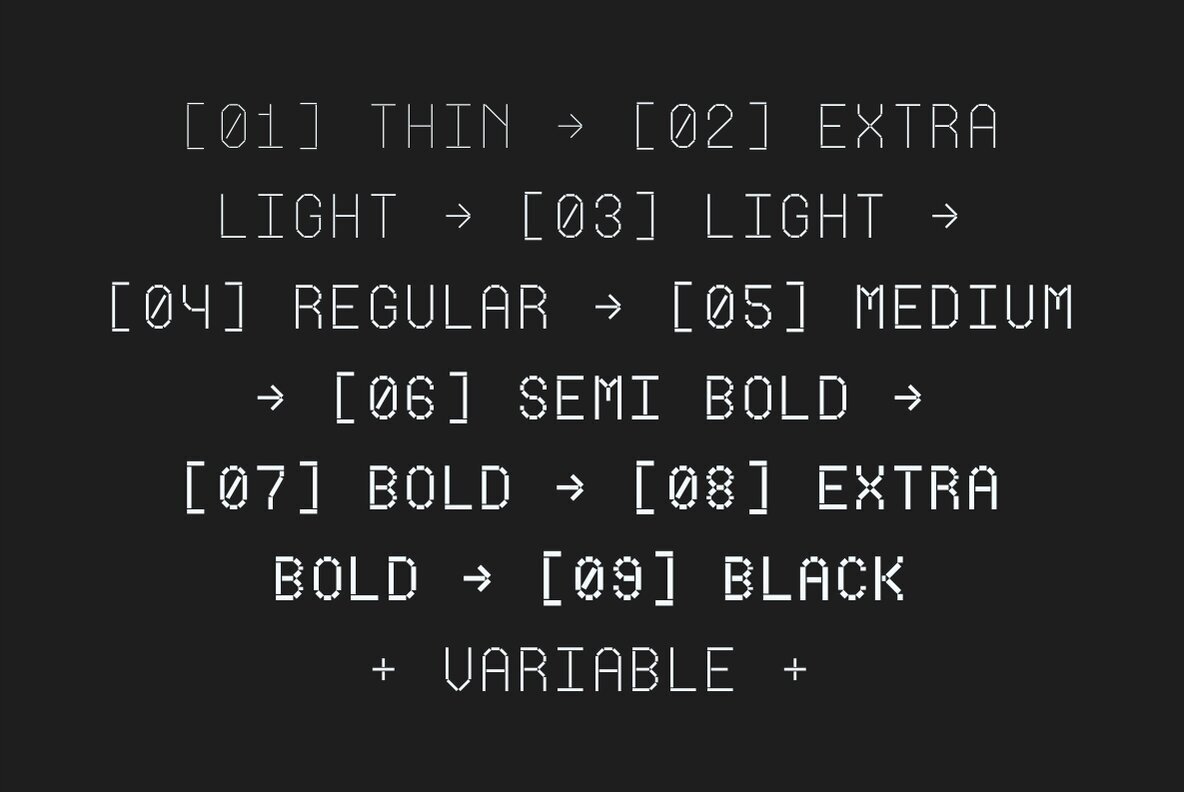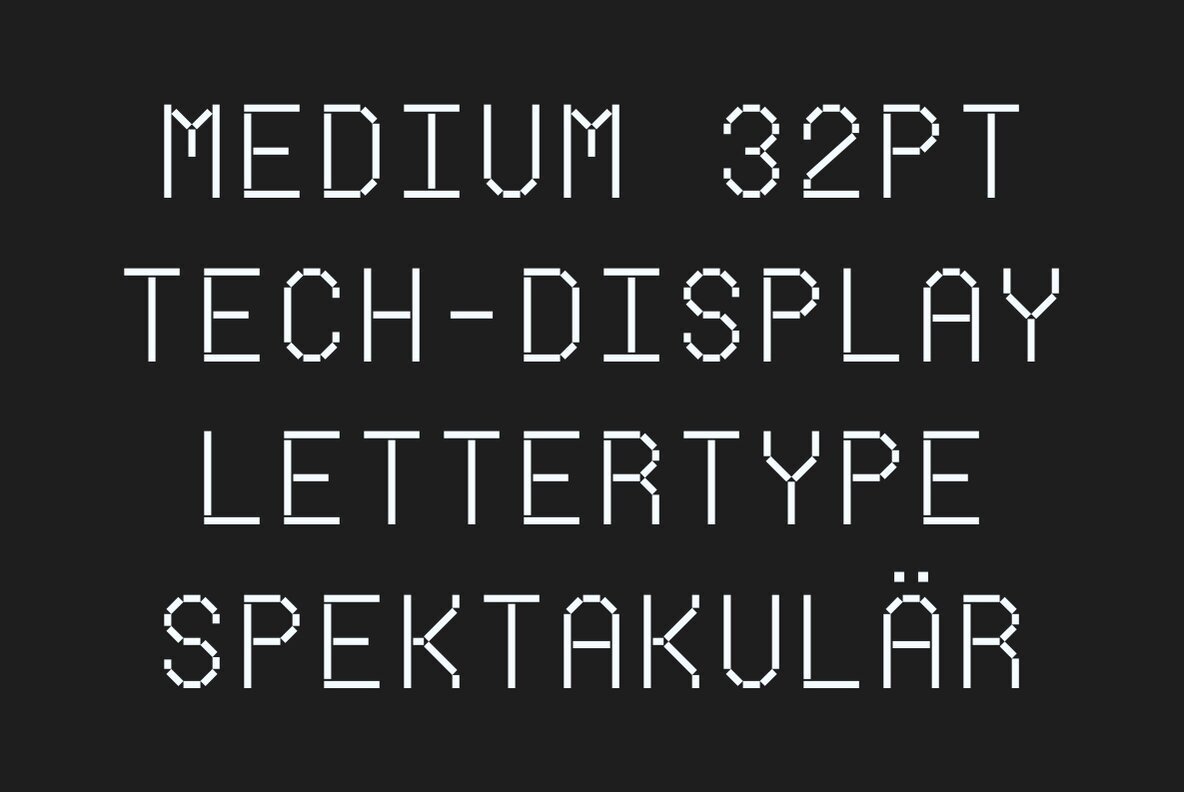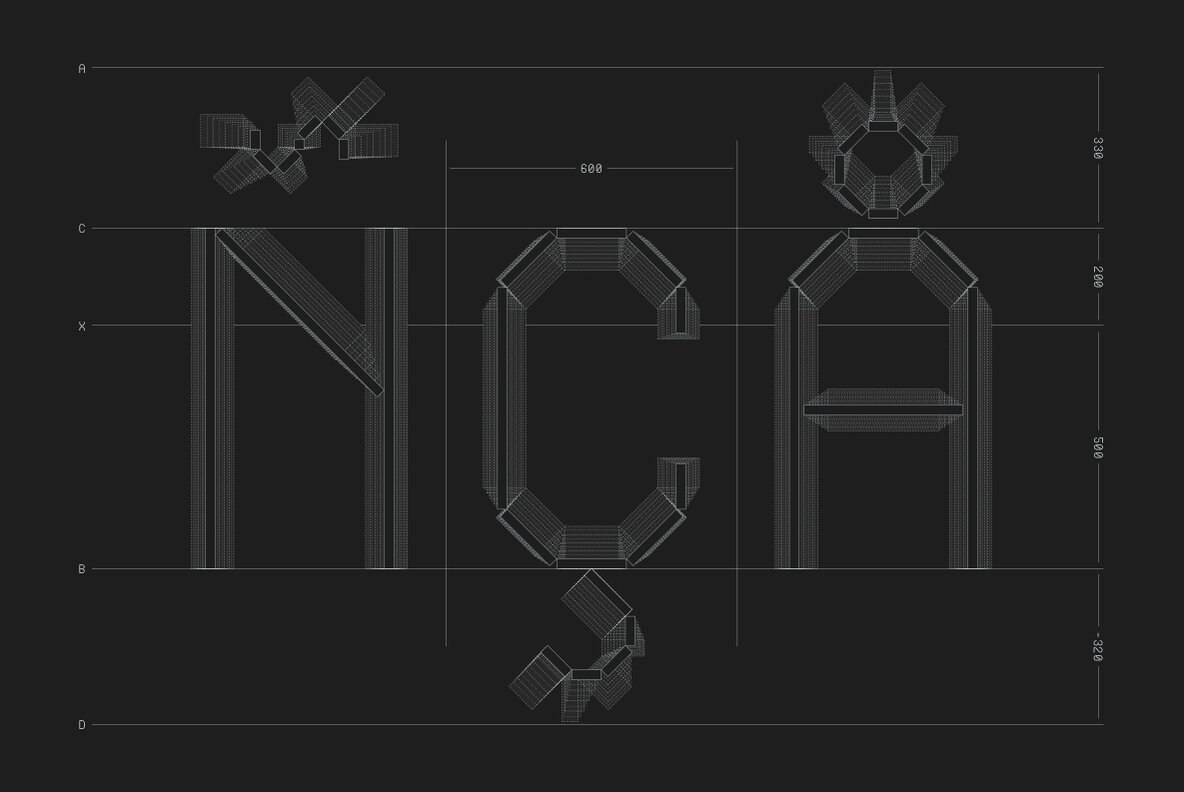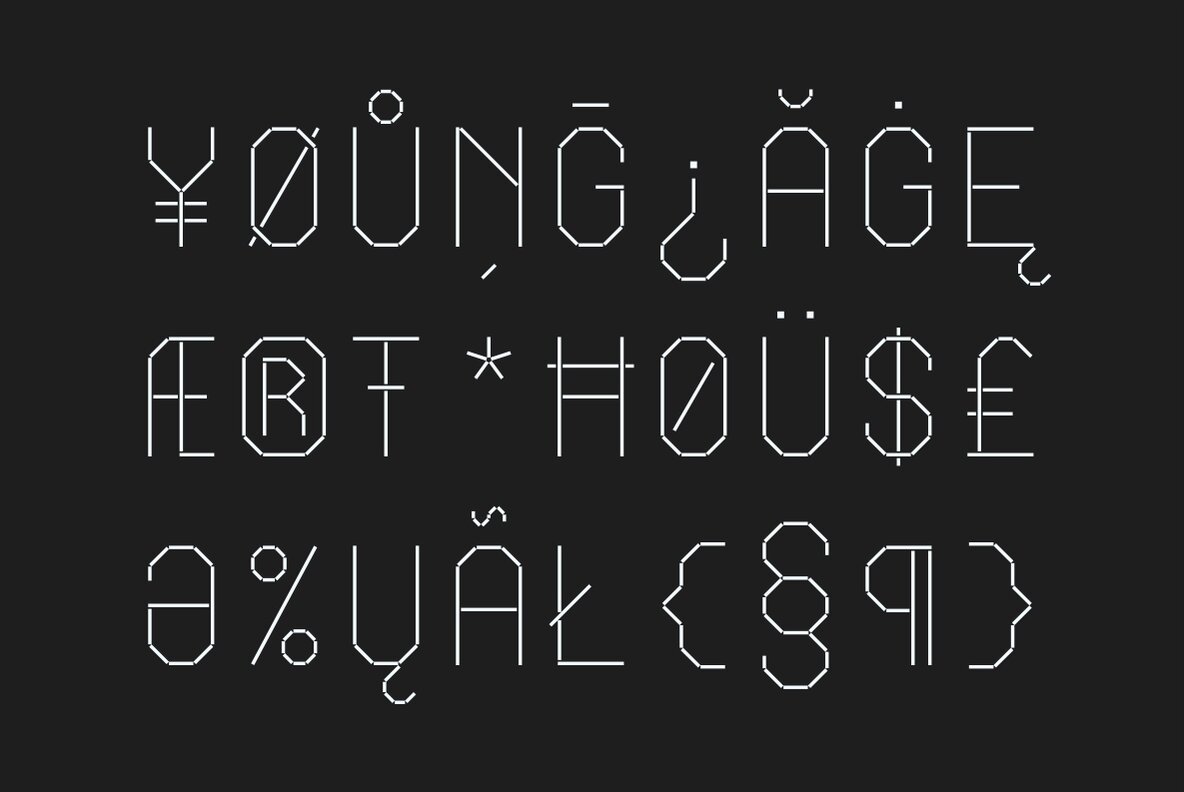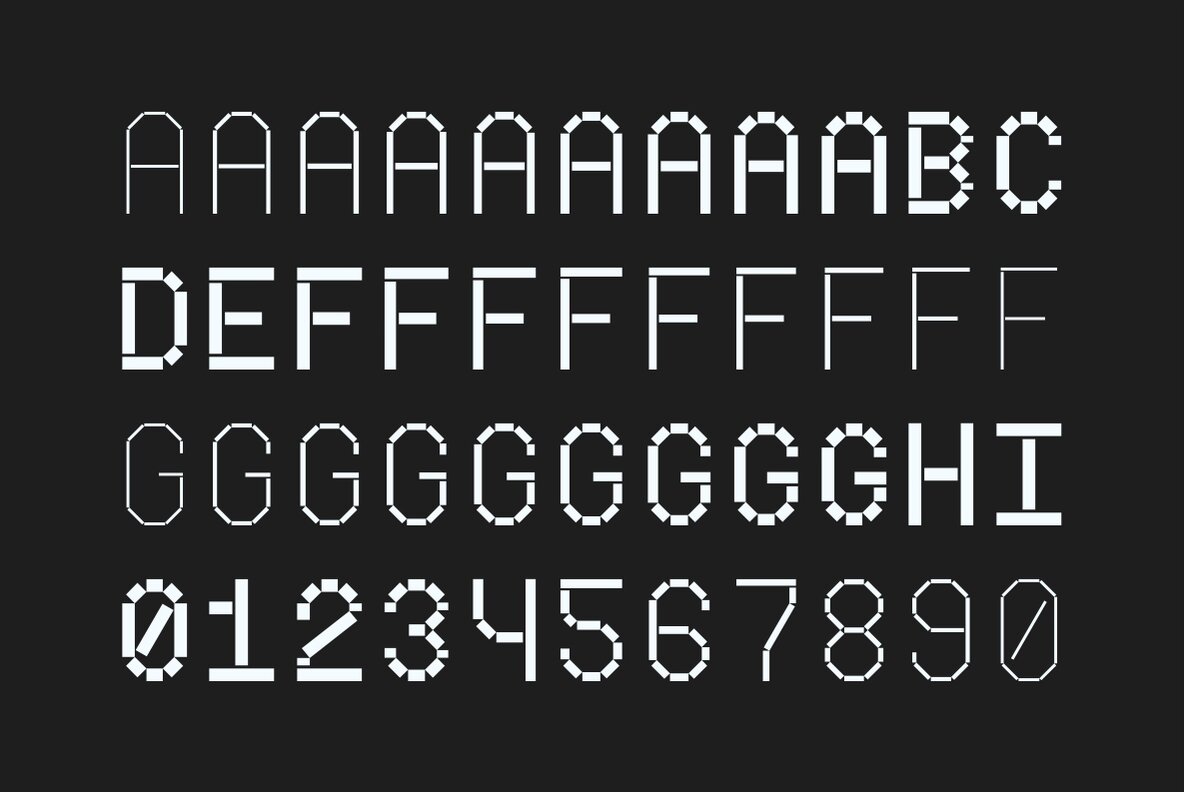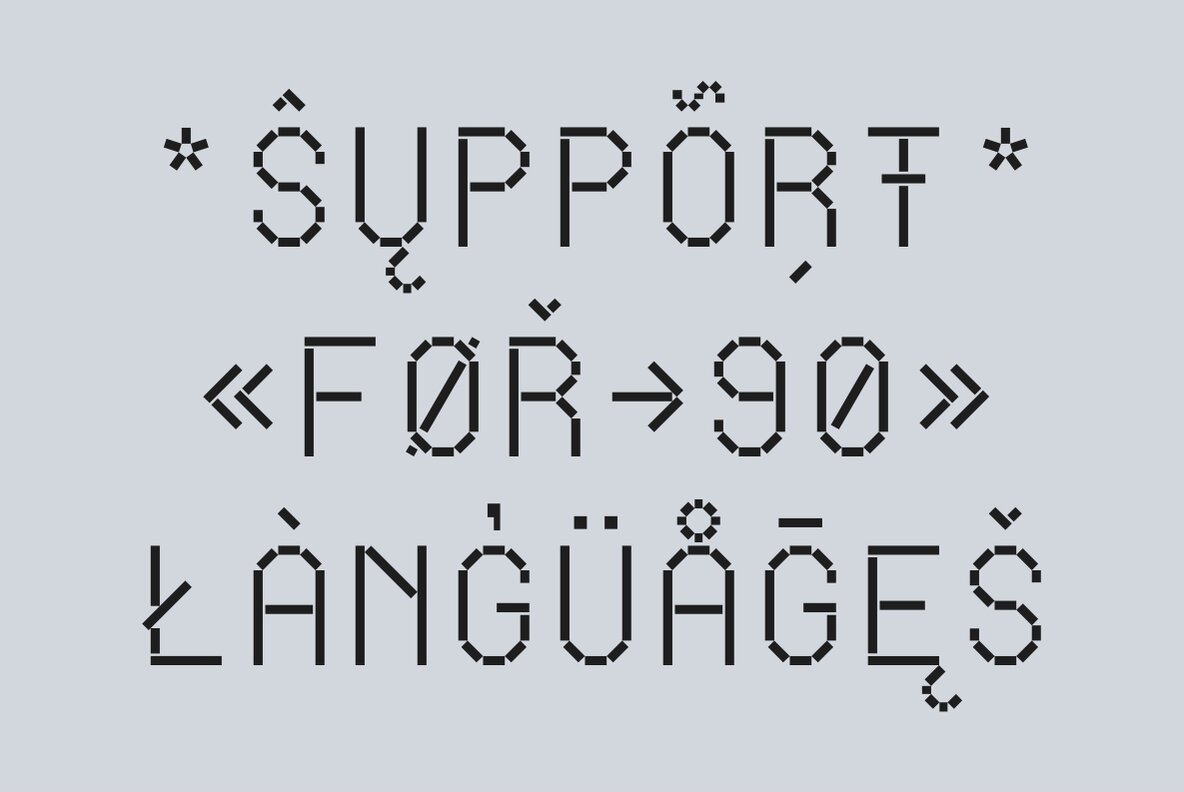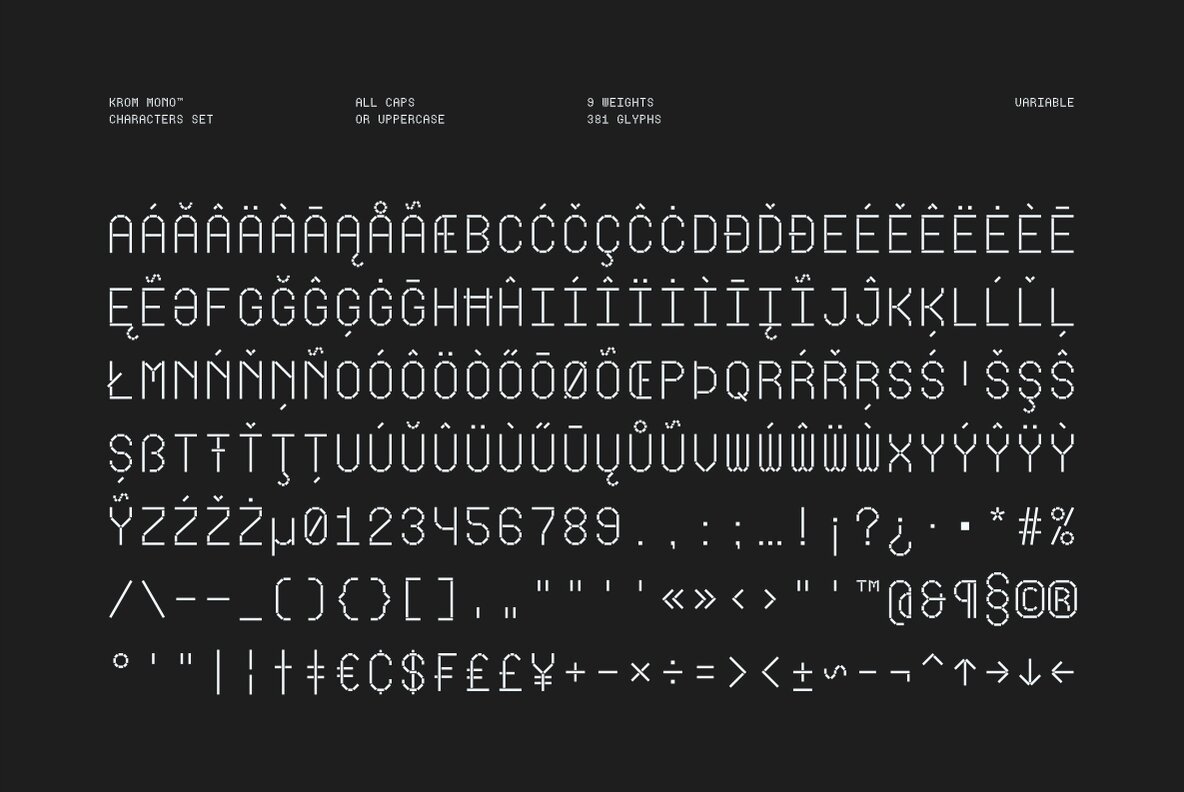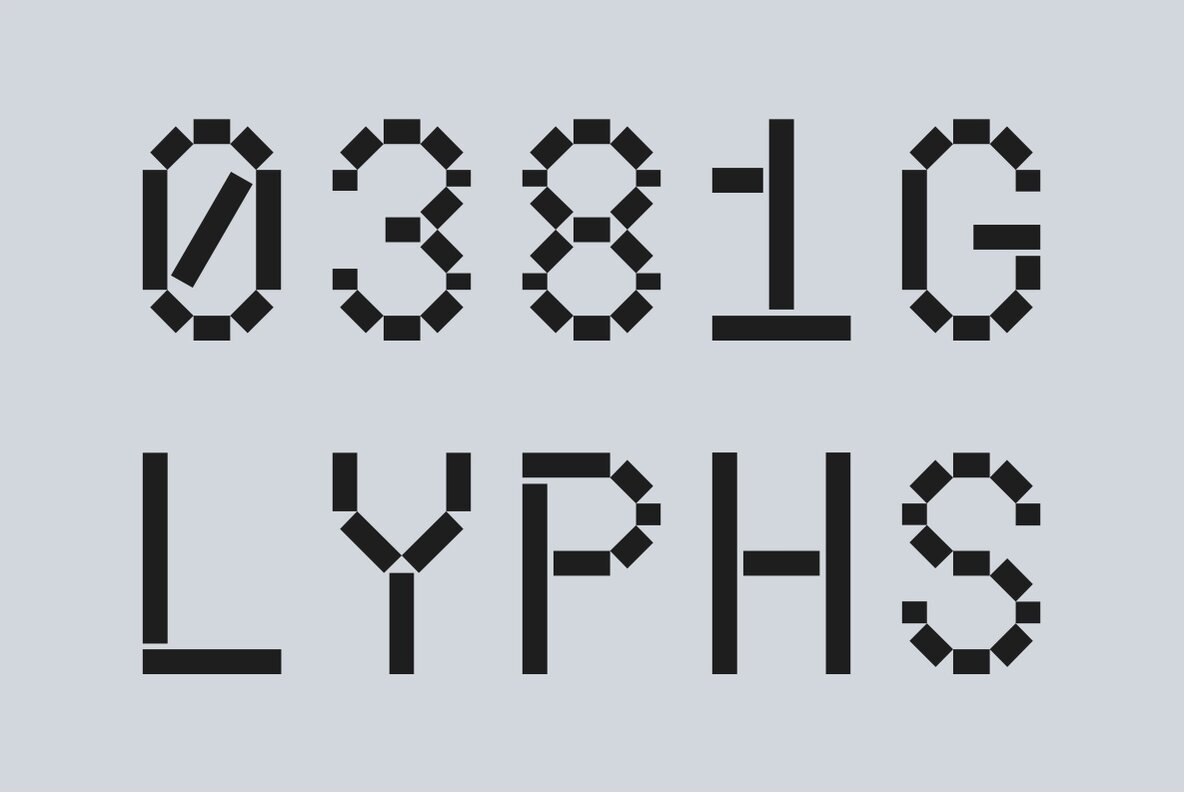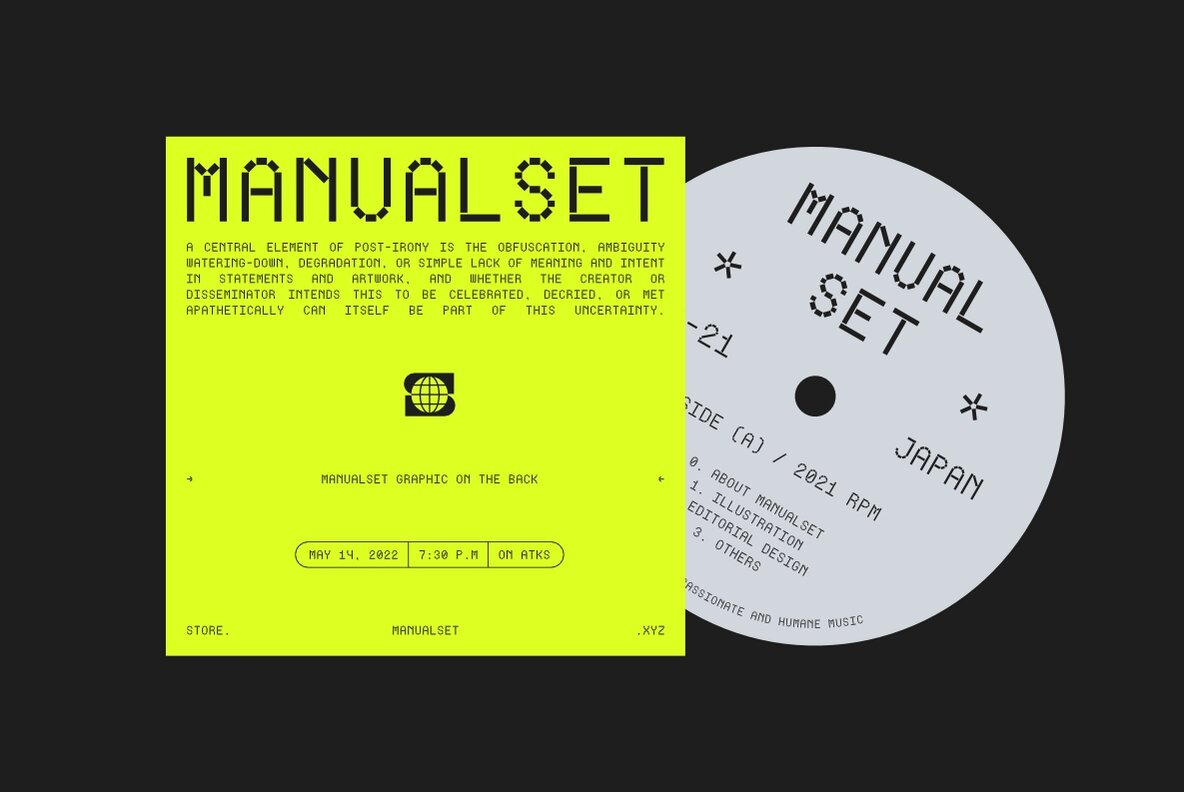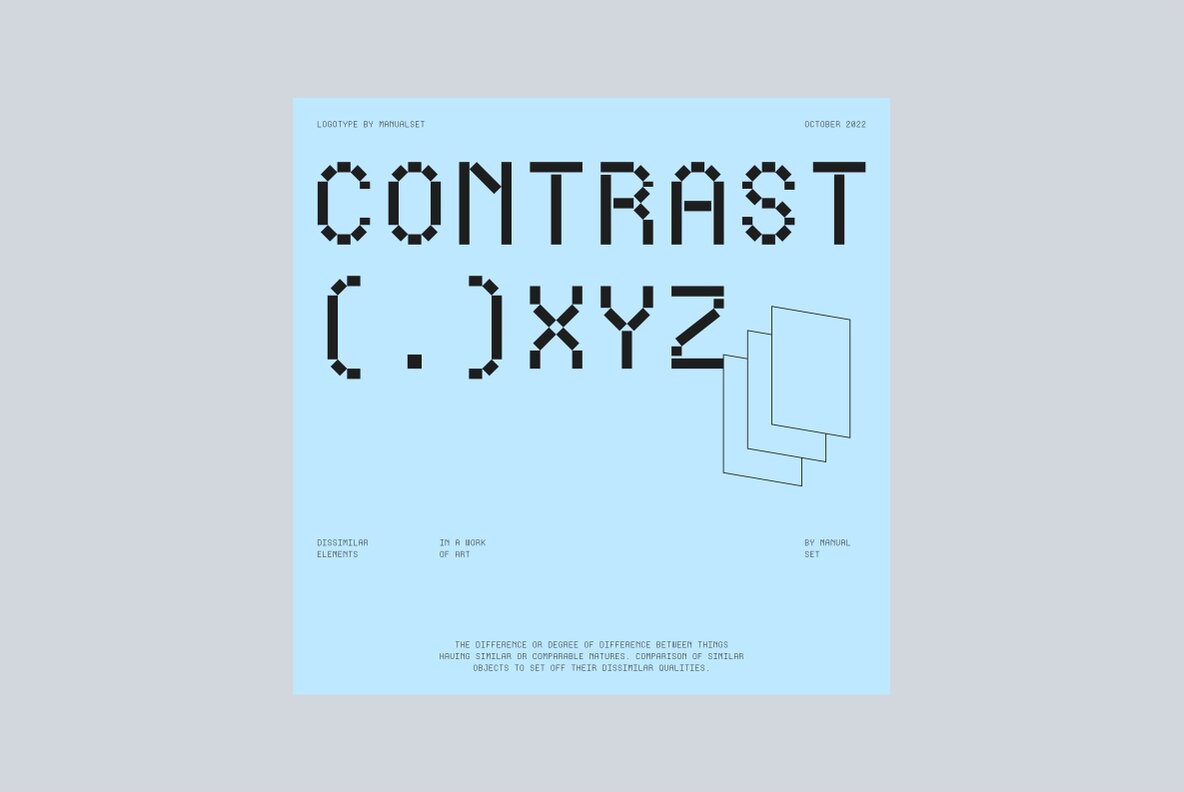
Krom Mono Font
Krom Mono is a modular monospaced font built with pixel shapes. Designed for headlines, posters, and small size body text. This family consist of 9 weights from thin to black plus variable font with a character set that covers over 90 languages.
ATK Studio is a type design practice founded in 2018 by Indonesian designer Radinal Riki. Based in Bandung, Indonesia, the studio focuses on experimental display and monospaced fonts, building a growing library of tech-inspired and unconventional typefaces. Known for its distinctive approach to letterform desi...